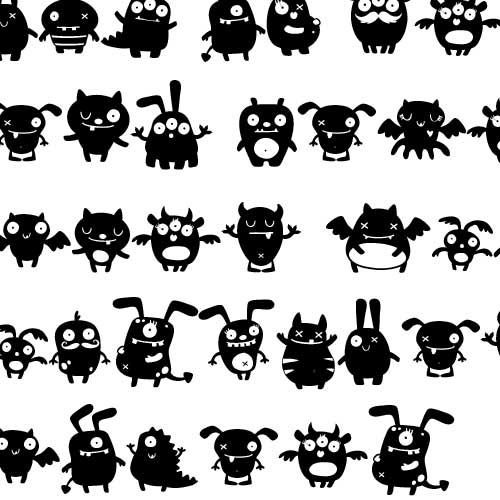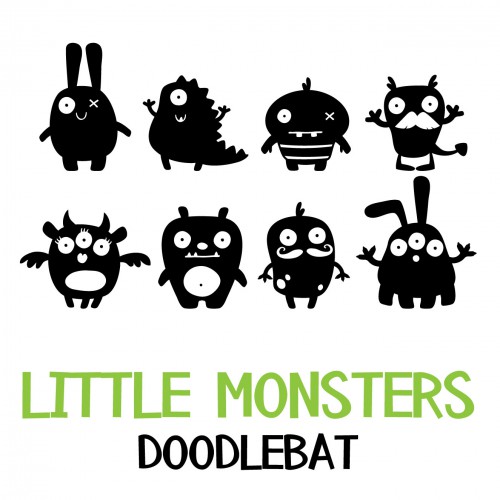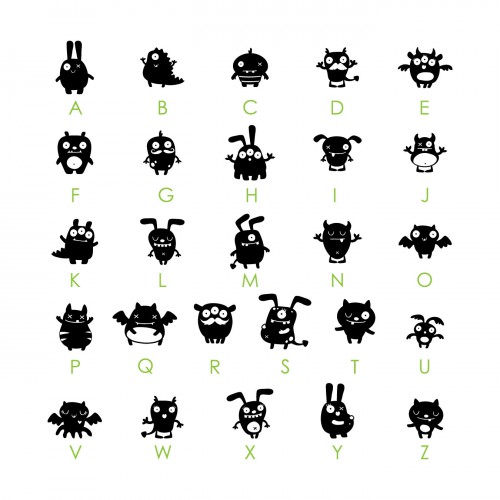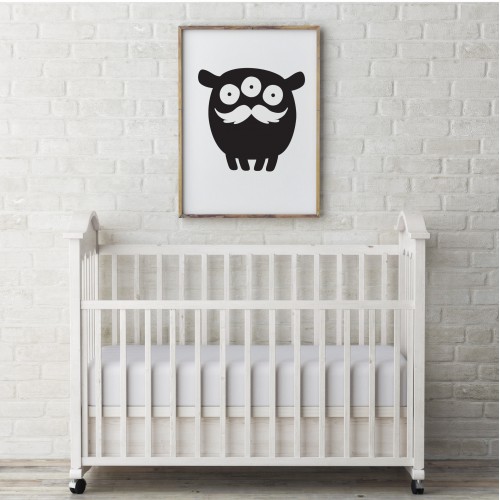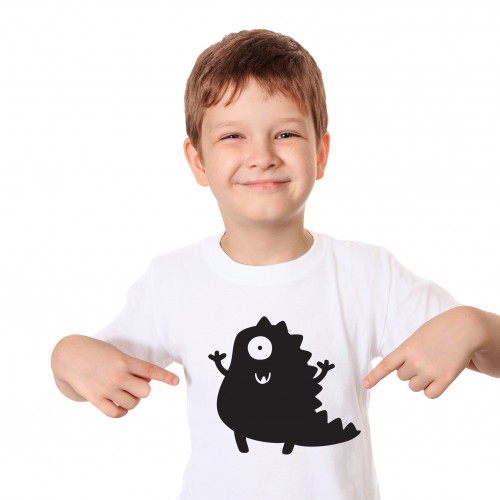
DB Little Monsters - DB
This doodlebat font has 26 different little monster images. Create scrap book pages, planner stickers, crafts, cards and more!